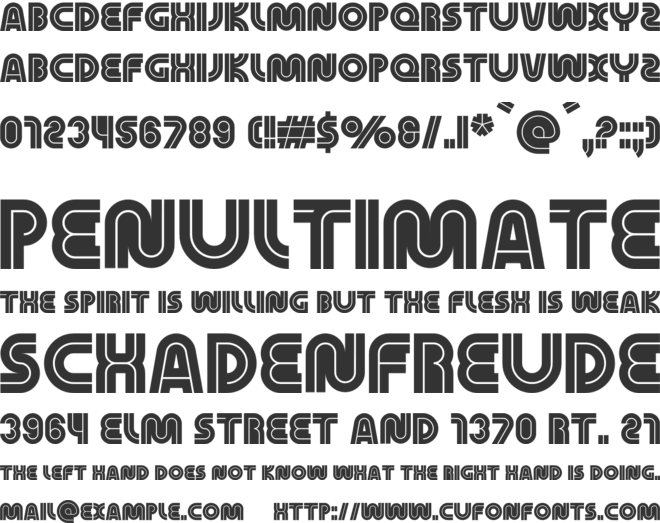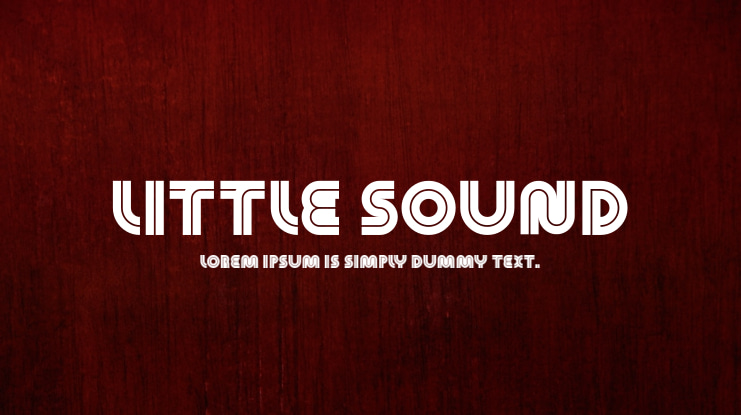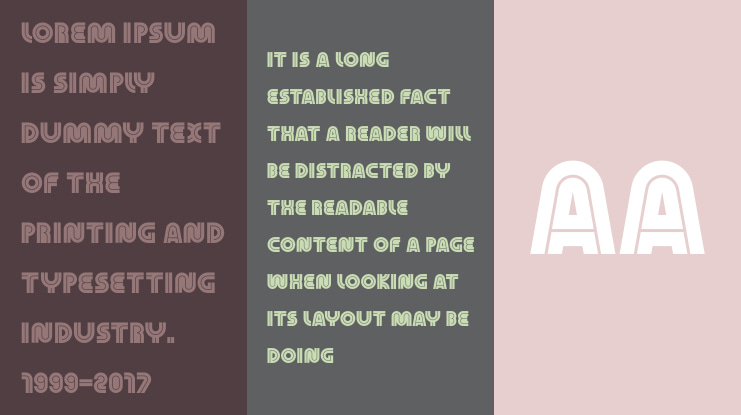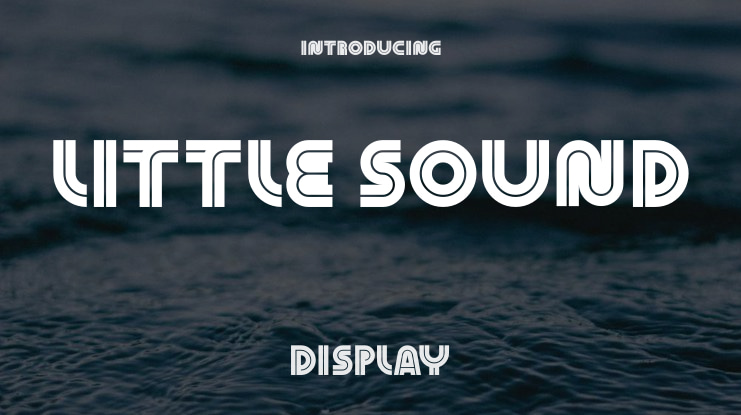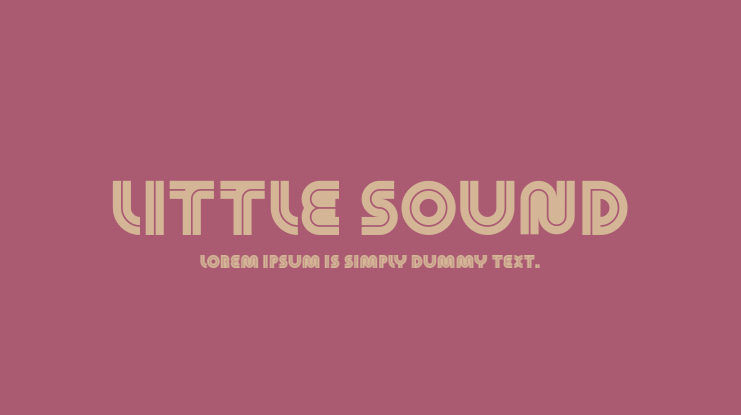
little sound Font
little sound is a retro techno display font based from a little sound / low-res sound compossing software on a game console from 90's.